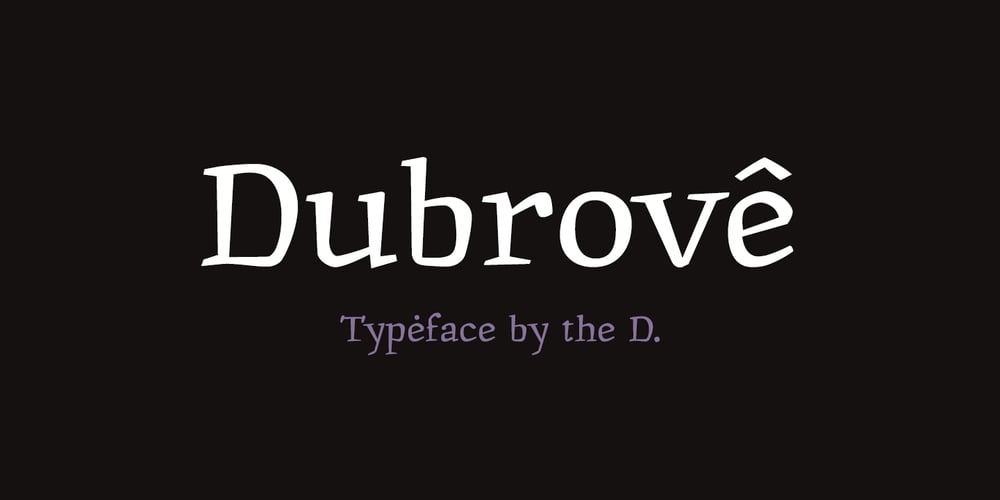
Dubrove Font Family was designed by Dima Pole and published by Dima Pole. Dubrove contains 1 styles and family package options. Dubrove is a wedge serif typeface inspired by Moravian (Czech) type designs of the 1930-50s. The character font is expressive: free, daring and graceful, delicious and attractive. Here are more than 1100 glyphs, all 102 European languages, all Ancient Slavic Alphabet (49 characters), Latin and Slavic small capitals and OpenType features with many solutions. Dubrove has several stylistic sets, historical forms, localized forms of several languages, interest contextual ligatures and many other delicacies. In the Dubrove typeface several stylistic sets of Slavonic lowercase letters are made. In addition to font basic style (in fact it is close to the natural lowercase character) is a traditional [ss02] set (postpreliminary, the Soviet Union, when most copy lowercase letters are uppercase) and lowercase the natural character [ss03], the style of which, in particular, is often used in the Bulgarian script.